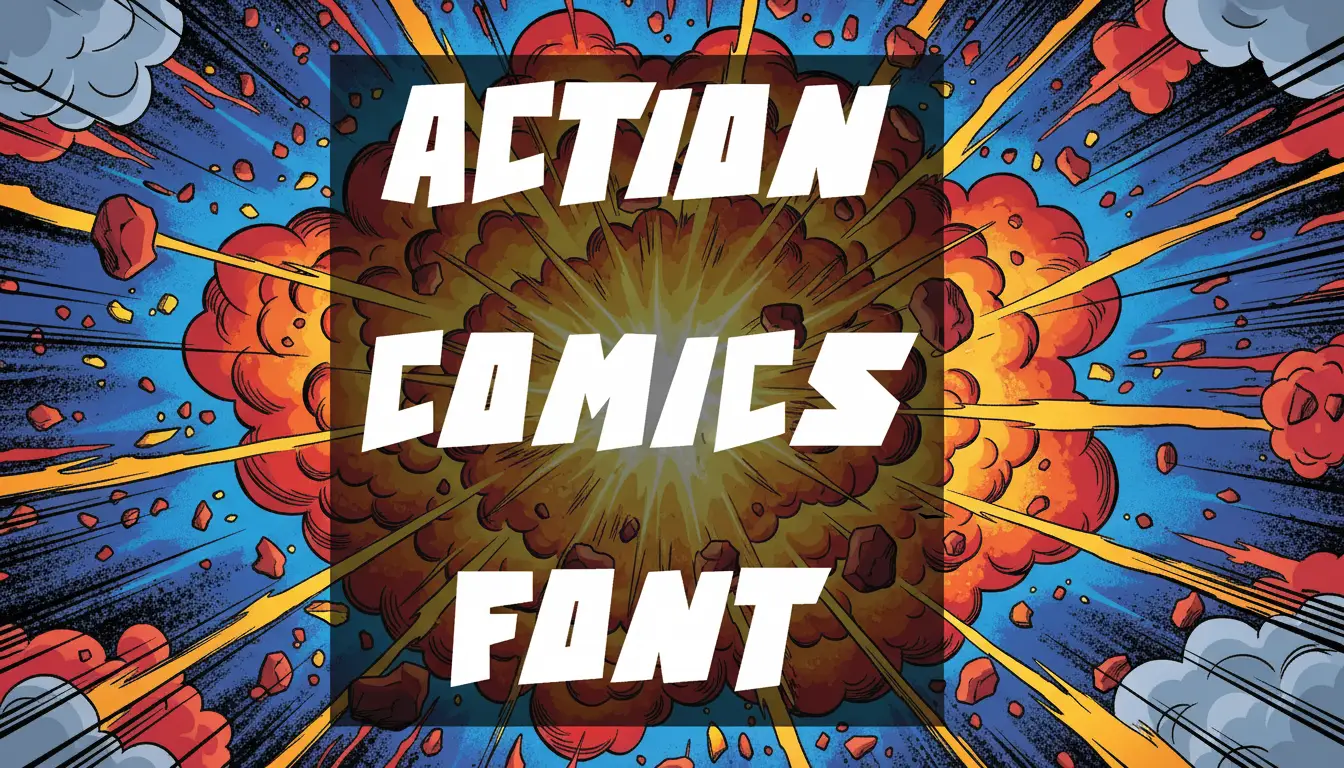
ACTION COMICS FONT FAMILY
ACTION COMICS FONT FAMILY is a fancy font made by imagex. It's a decorative display font with plenty of personality, made to grab attention. It's a free download, and you can try it with your own text in the preview above first.
ACTION COMICS FONT FAMILY is an all-caps font: it only has capital letters. Lowercase letters will show up in a different font or as empty boxes, so turn on Caps Lock when you type. All ten numbers are included. Common punctuation such as !, ? and $ is included as well. It has 44 accented letters, but not the full set for Spanish or French, so test any non-English words first.
Designers usually reach for fonts like ACTION COMICS FONT FAMILY when they're making posters, logos and eye-catching headlines. Use it for one standout word or headline and let simpler fonts handle the rest.
Partly. ACTION COMICS FONT FAMILY has 44 accented letters, but not the complete set for Spanish, French or German. Type your words in the preview above to check before you use it.